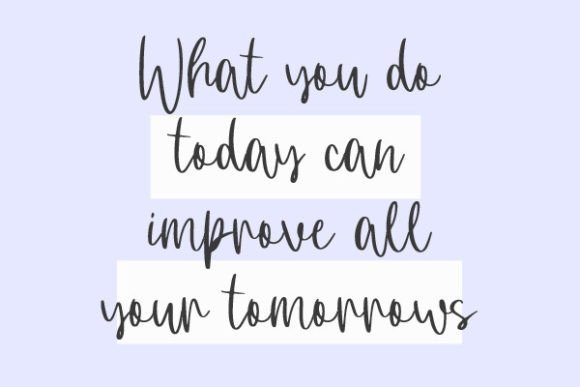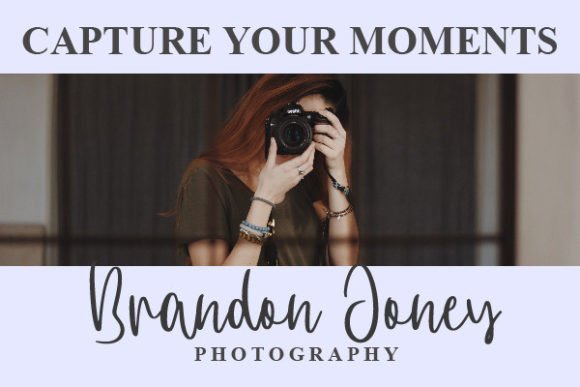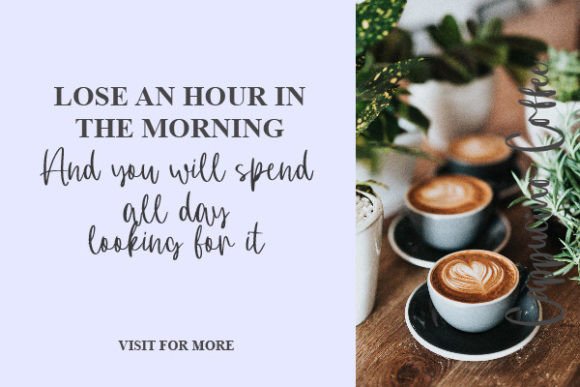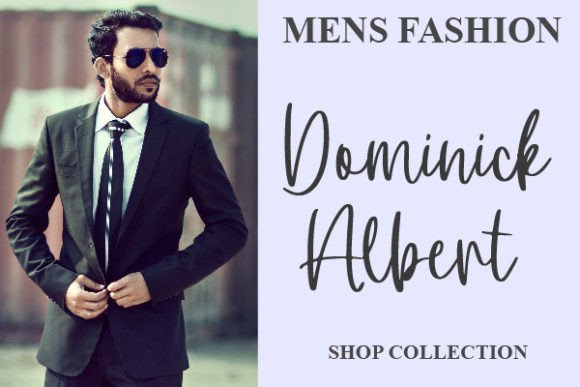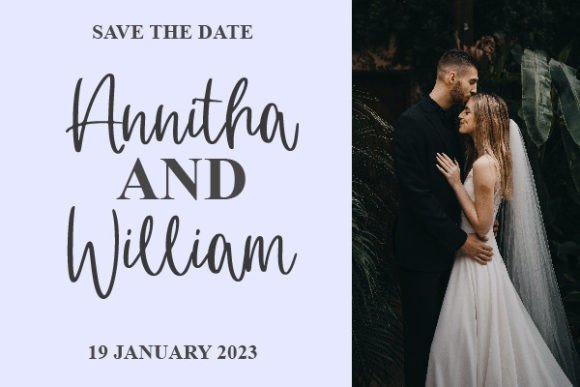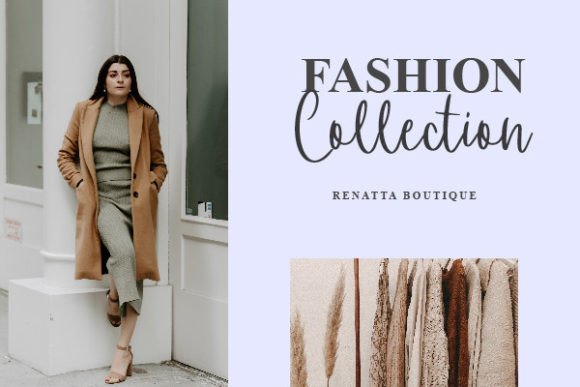
Discover the Elegance of Annabel Vickers Font: Elevate Your Designs with a Timeless Touch
Are you on the hunt for a font that exudes elegance, sophistication, and a dash of timeless charm? Look no further than the Annabel Vickers Font. This beautifully crafted, flowing handwritten font is designed to capture the hearts of designers and crafters alike with its incredibly distinct and elegant touch. Perfect for those who appreciate the finer details in design, Annabel Vickers is set to become your new favorite go-to font for a wide array of projects.
The Distinctive Charm of Annabel Vickers
Annabel Vickers Font stands out in the world of typography with its unique, flowing script that dances across the page with grace and fluidity. Each letter is meticulously designed to contribute to the overall sense of elegance and refinement that this font embodies. Whether you’re working on a branding project, a wedding invitation, a fashion blog, or any other creative endeavor, Annabel Vickers brings a level of sophistication that is hard to match.
Key Features of Annabel Vickers Font
- Elegant and Flowing Script: The fluidity of Annabel Vickers’ script gives it a dynamic and lively feel, making it perfect for designs that require a touch of personality and charm.
- Timeless Style: Unlike trends that come and go, Annabel Vickers boasts a timeless quality that ensures your designs will remain stylish and relevant for years to come.
- Versatility: This font is incredibly versatile, suitable for a wide range of projects from digital content to print materials.
- Distinctive Letterforms: Each letter in the Annabel Vickers Font is uniquely designed, contributing to the font’s distinct character and aesthetic appeal.
The versatility of Annabel Vickers Font makes it an excellent choice for numerous applications. Here are a few ideas to get you started:
- Branding and Logotypes: Create a lasting impression with a logo or brand identity that exudes elegance and sophistication.
- Wedding and Event Stationery: Add a touch of romance and class to your wedding invitations, save the dates, and other event materials.
- Fashion and Beauty: Elevate your fashion blog, magazine, or brand with a font that speaks to style and luxury.
- Packaging and Product Design: Stand out on store shelves with packaging that boasts a refined and upscale look.
Tips for Using Annabel Vickers Font
To make the most of Annabel Vickers Font, consider the following tips:
- Pair with Contrasting Fonts: Combine Annabel Vickers with a clean, sans-serif font for headings and body text to create visual interest and hierarchy.
- Experiment with Colors: While Annabel Vickers looks stunning in classic black and white, don’t be afraid to experiment with colors that complement your brand or project’s aesthetic.
- Adjust Letter Spacing: For optimal readability, adjust the letter spacing according to your project’s requirements, especially when using the font for body text.
Annabel Vickers Font is more than just a typeface; it’s a design element that can transform your projects with its elegant and timeless charm. Whether you’re a professional designer or a DIY crafter, this font offers the perfect blend of sophistication and personality to make your work stand out. So, fall in love with Annabel Vickers and discover a world of design possibilities that are as limitless as your imagination.
Embrace the elegance of Annabel Vickers Font in your next project and experience firsthand the impact of a truly distinctive and timeless typeface.